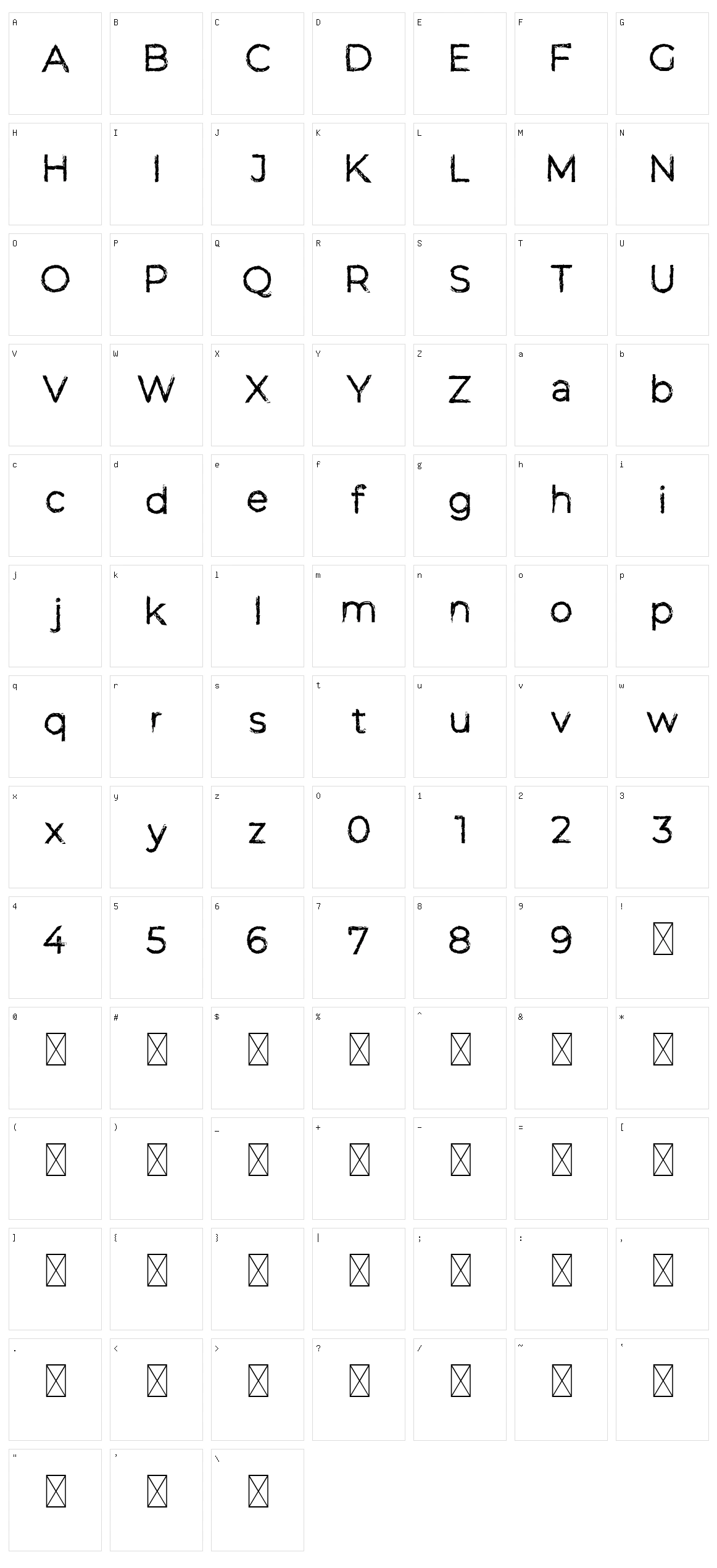
The free font Greepes is carefully designed by Joko Triwijayanto, showcasing a thoughtful balance of creativity and usability and falls under the Eroded font style. When you download the ZIP file, it contains only 185.19 KB of font files, making it lightweight and quick to download. Please review the license details below to understand permitted usage and distribution rights. If license information is not available, we recommend using this font for personal projects only or contacting the author directly for commercial usage permissions.